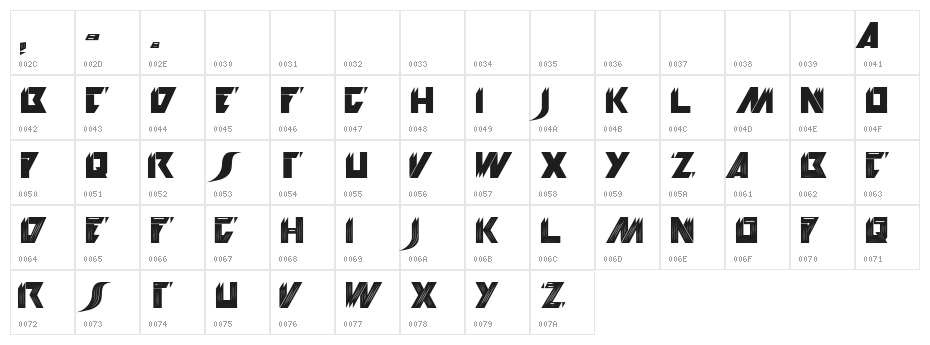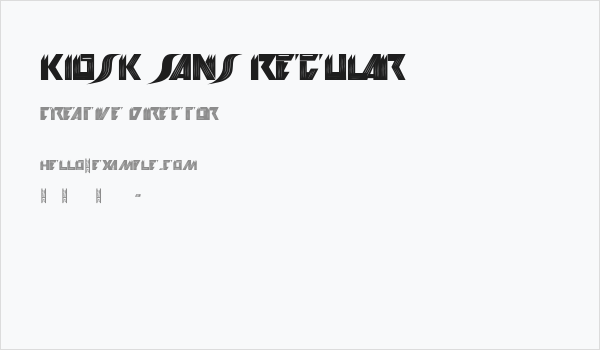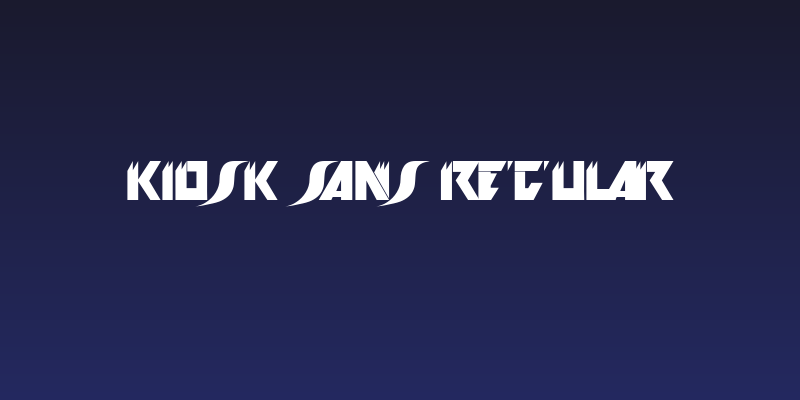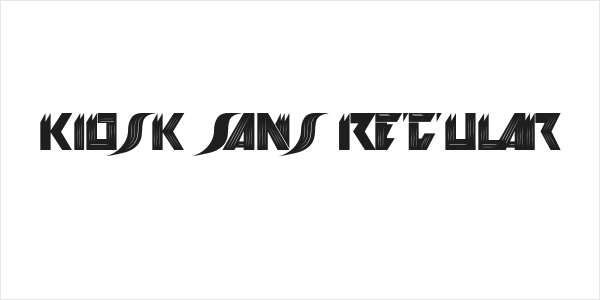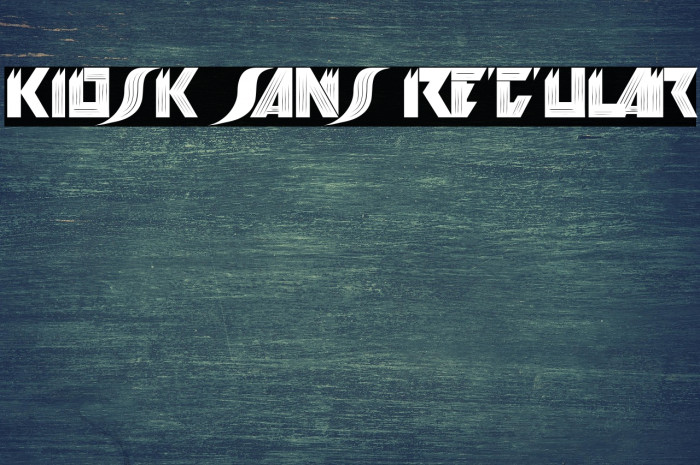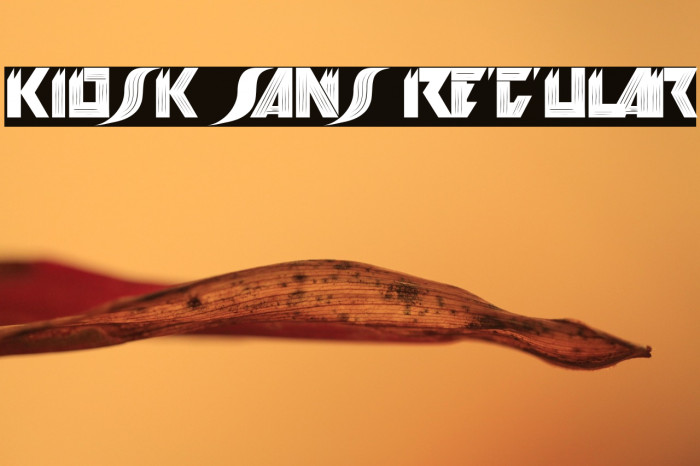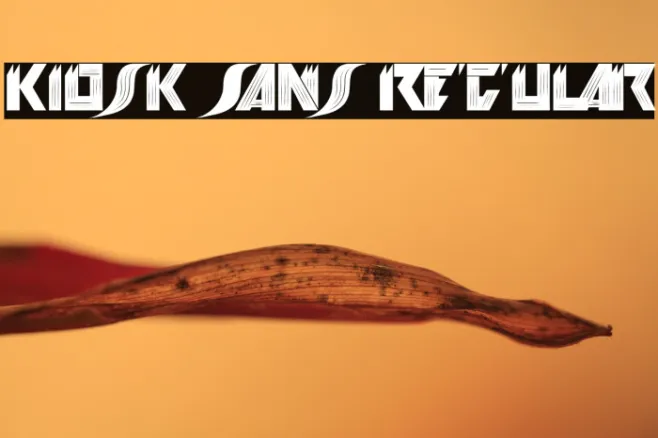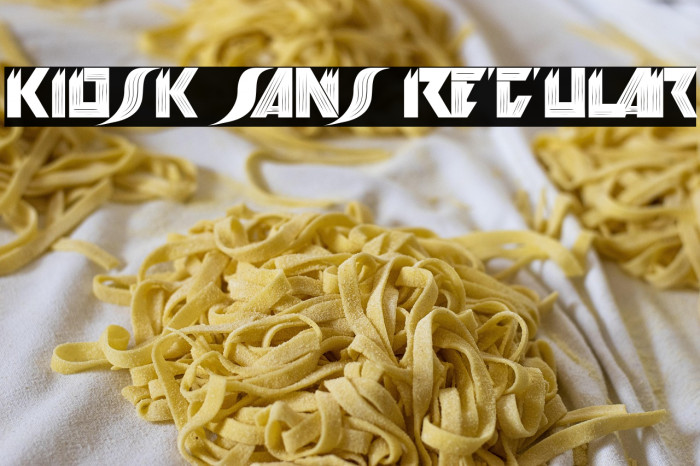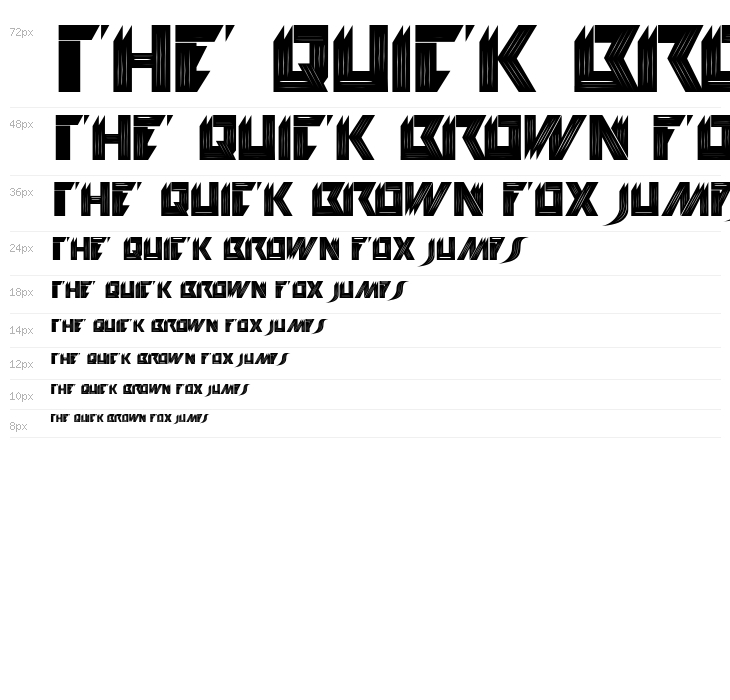
Kiosk Sans Regular Font
Kiosk Sans Regular Description
This font features a bold and dynamic design with sharp, angular edges and a futuristic aesthetic. The characters are constructed with a combination of solid and striped patterns, creating a sense of movement and energy. The uppercase letters are particularly striking, with their geometric forms and aggressive styling. The lowercase letters maintain the same energetic style, ensuring consistency throughout. The numbers and special characters are equally bold, making them stand out in any design. This font is ideal for projects that require a modern and edgy look.